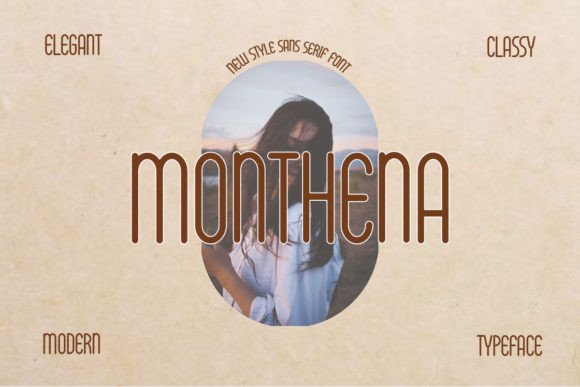
Prepare yourself to be spellbound by Monthena, the exquisitely crafted sans serif font family that exudes elegance and sophistication. Inspired by the allure of minimalism and the unwavering beauty of modern lines, Monthena is a visual masterpiece that will transform your creative projects into captivating works of art.
With its clean and contemporary design, Monthena effortlessly blends timeless appeal with a distinctly modern touch. Each character is meticulously drawn, showcasing the harmonious balance between delicate strokes and bold lines. Whether you're designing wedding invitations that whisper romance or crafting logos that command attention, Monthena will elevate your designs to new heights of beauty and distinction.
Unleash your creativity and explore the endless possibilities that Monthena presents. Its versatility extends far beyond the realm of print, making it an ideal choice for digital designs, social media graphics, and even web development. Monthena's inherent charm and adaptability will seamlessly adapt to any project you envision, leaving an unforgettable impression that resonates with your audience.